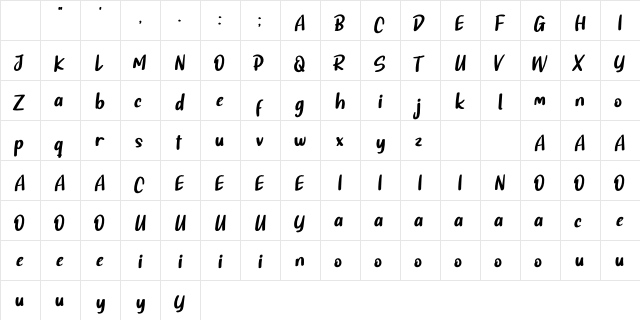
Complete Master Black Personal Use glyph index. Displaying only characters natively supported by Master Black Personal Use font.
Master Black is a composed and adaptable typeface that performs quietly and consistently across a wide range of design contexts.